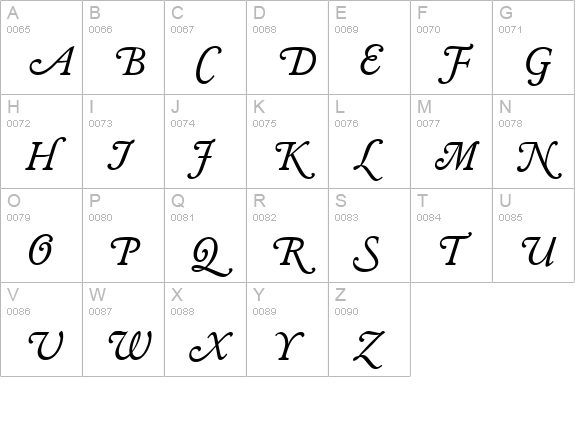
Garamond BE Swash Italic is a distinctive, italic variant in the Garamond typeface family \xE2\x80\x94 well suited to design and typography projects.
Garamond BE Swash Italic font is a stunning and elegant typeface that effortlessly combines a classic feel with a touch of sophistication. Its gracefully curved swashes and delicate letterforms exude a timeless beauty that is sure to captivate the eye. This font is perfect for adding a touch of elegance and charm to any design project. Whether you're creating wedding invitations, elegant branding materials, or sophisticated editorial layouts, Garamond BE Swash Italic font will elevate your designs to a whole new level. What makes this font even more appealing is that it is freely available to download at FontsMarket.com. This means that you can easily access and use this stunning typeface without any hassle. So, whether you're a professional designer or a novice enthusiast, you can enjoy the beauty and versatility of Garamond BE Swash Italic font without any cost. With its intricate swashes and stylish italic design, this font effortlessly adds a touch of flair and sophistication to any project. Its versatile nature allows it to be used in a variety of contexts, from formal invitations to elegant advertisements. The Garamond BE Swash Italic font is a true gem in the world of typography. Its timeless beauty, elegance, and versatility make it a must-have for any designer or creative. And with it being freely available to download at FontsMarket.com, there's no reason not to incorporate this stunning typeface into your next design project.